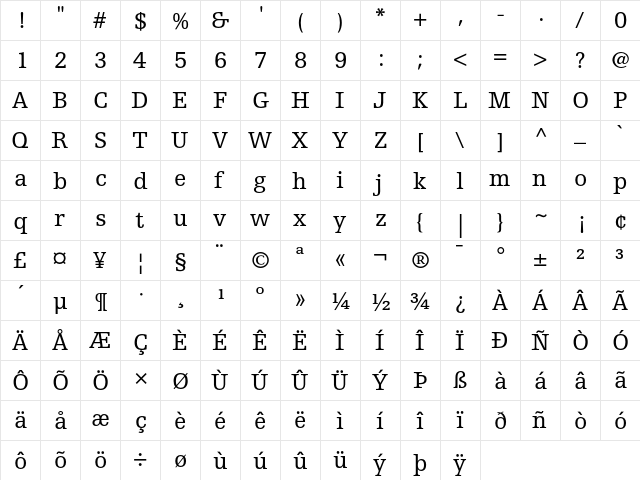
Egyptienne F 55 Roman
Design Context for Egyptienne F Typeface
Egyptienne F offers clean, dependable letterforms without strong stylistic allegiance, making it a practical choice for designers who need flexibility.